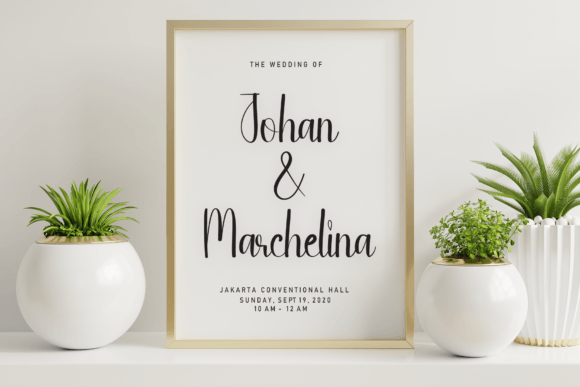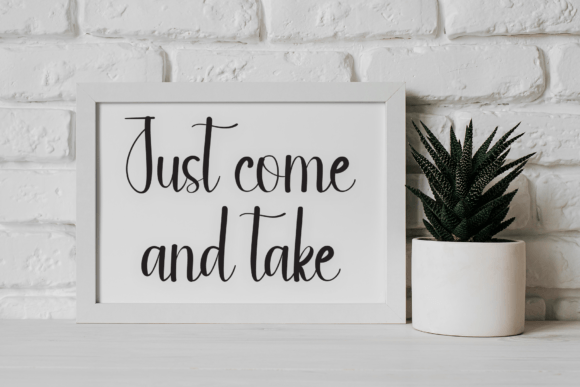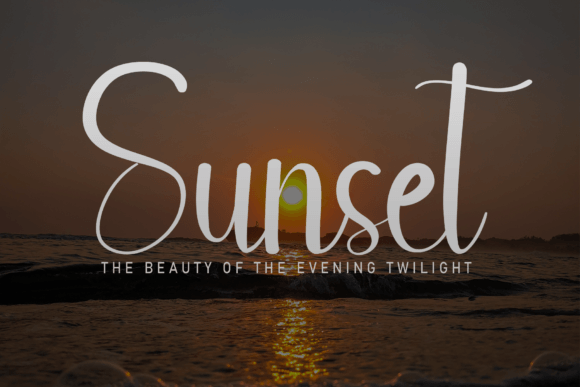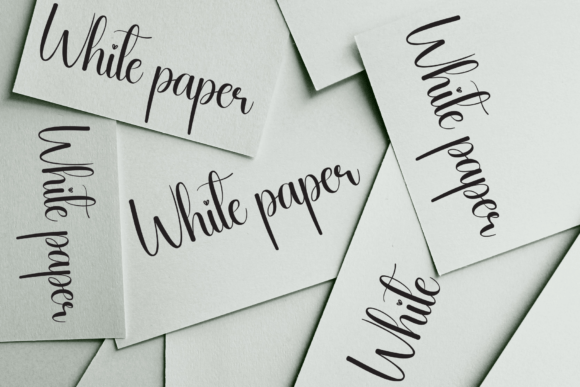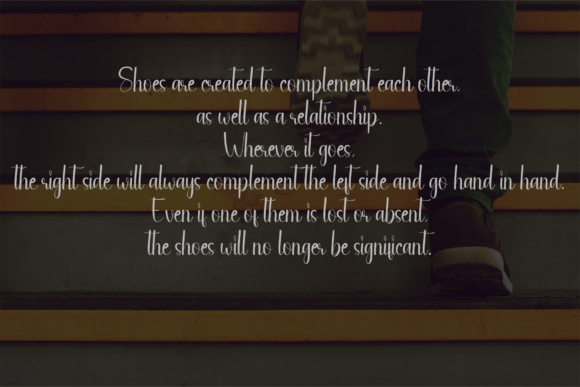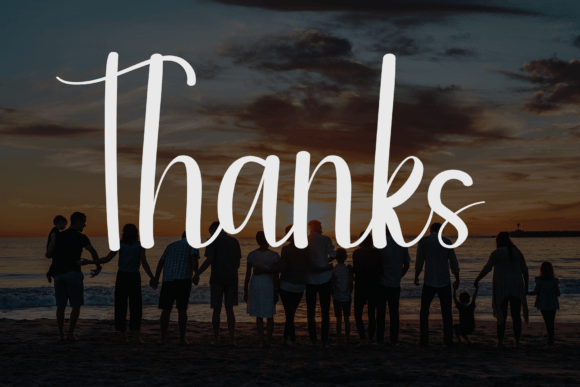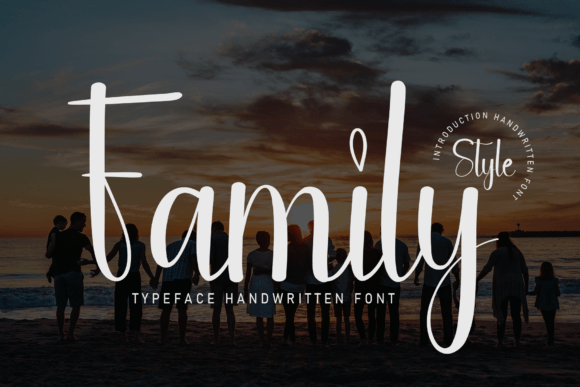
Introducing Family Font: The Sweet and Friendly Handwritten Display Font
Are you looking for a font that can add a touch of warmth and personality to your designs? Look no further than Family Font, a sweet and friendly handwritten display font that’s perfect for creating fun and engaging visual content. In this article, we’ll take a closer look at Family Font, its features, and how you can use it to elevate your designs.
What is Family Font?
Family Font is a beautiful handwritten display font that’s designed to bring a sense of joy and playfulness to your designs. With its cute and fun appearance, this font is ideal for writing wedding invitations, cards, or any other design that might need a fun touch. Whether you’re a designer, crafter, or DIY enthusiast, Family Font is a great addition to your font collection.
Key Features of Family Font
- Handwritten appearance: Family Font has a unique, handwritten appearance that’s perfect for creating personal and engaging designs.
- Cute and fun: This font is designed to add a touch of playfulness to your designs, making it perfect for wedding invitations, cards, and other celebratory designs.
- Display font: Family Font is a display font, which means it’s designed to be used at larger sizes, making it perfect for headlines, titles, and other prominent design elements.
- Easy to read: Despite its playful appearance, Family Font is easy to read, making it perfect for body text and other design elements where readability is important.
How to Use Family Font
Family Font is a versatile font that can be used in a variety of design projects. Here are some ideas to get you started:
- Wedding invitations: Family Font is perfect for creating beautiful and unique wedding invitations that set the tone for a special day.
- Cards and stationery: This font is great for creating fun and playful cards and stationery for special occasions, such as birthdays, anniversaries, and holidays.
- Social media graphics: Family Font can be used to create engaging social media graphics, such as Facebook posts, Instagram captions, and Twitter headers.
- DIY projects: This font is perfect for DIY enthusiasts who want to add a personal touch to their projects, such as scrapbooking, crafting, and home decor.
Tips for Using Family Font
Here are some tips for using Family Font in your designs:
- Use it with contrasting fonts: Family Font works best when paired with contrasting fonts, such as serif or sans-serif fonts, to create visual interest.
- Experiment with colors: This font looks great in a variety of colors, so don’t be afraid to experiment and find the perfect color scheme for your design.
- Pay attention to spacing: Make sure to adjust the spacing between letters and words to create a clean and easy-to-read design.
Family Font is a sweet and friendly handwritten display font that’s perfect for adding a touch of warmth and personality to your designs. With its cute and fun appearance, this font is ideal for writing wedding invitations, cards, or any other design that might need a fun touch. Whether you’re a designer, crafter, or DIY enthusiast, Family Font is a great addition to your font collection. So why not give it a try and see how it can elevate your designs?